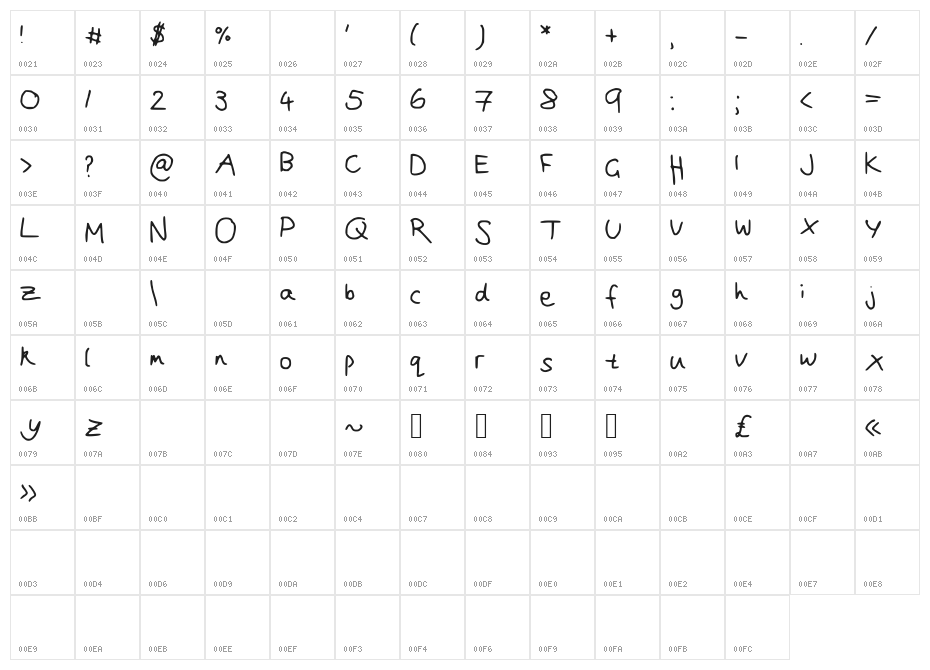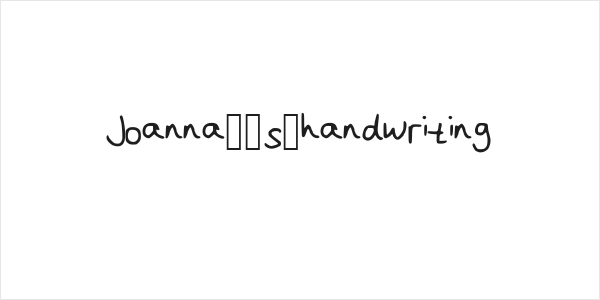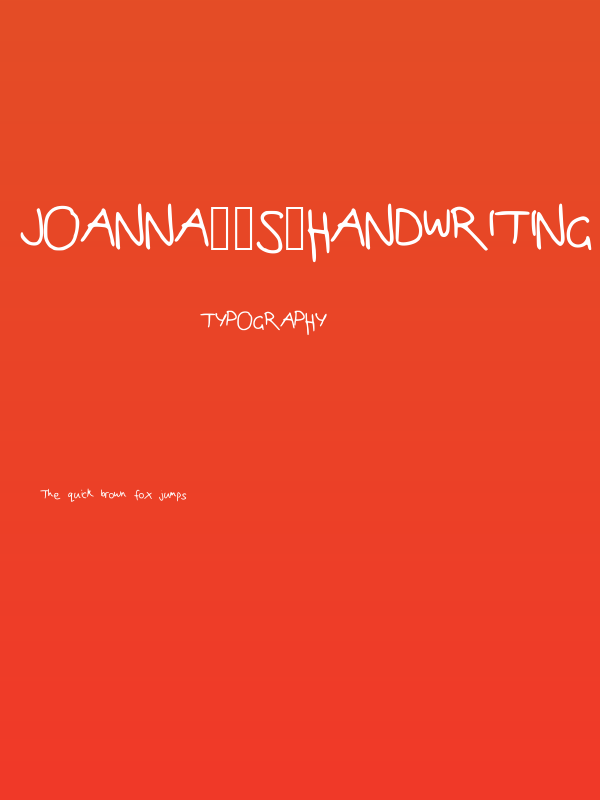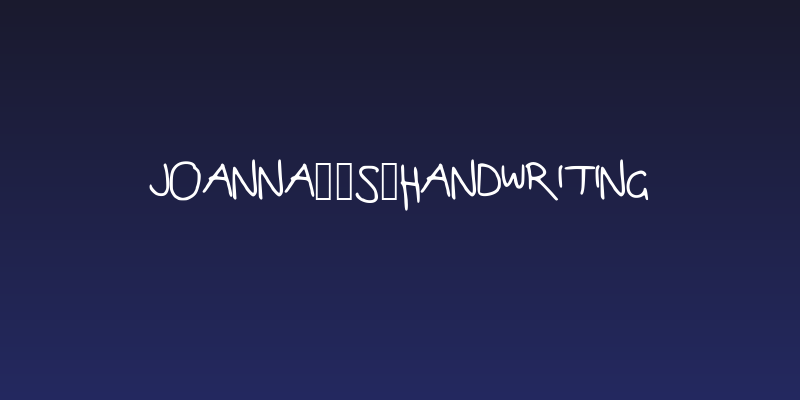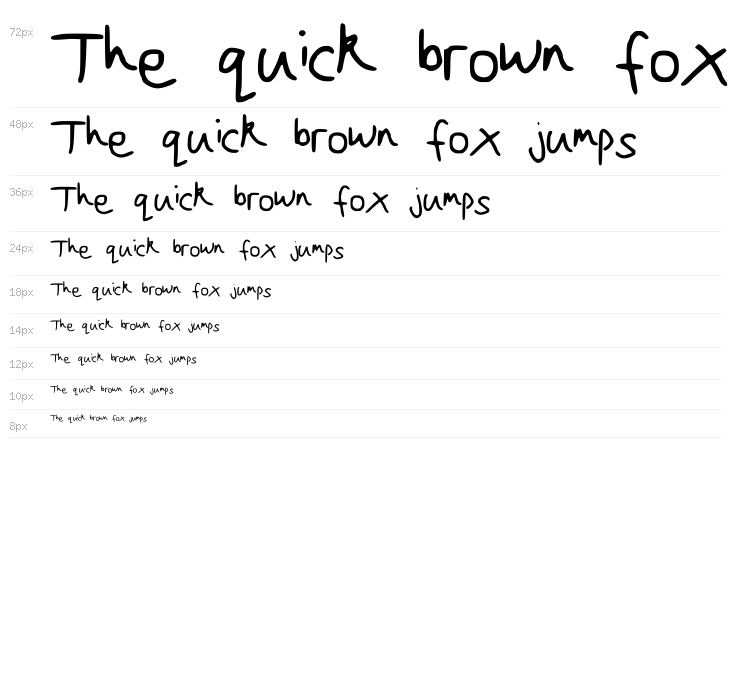
Joanna__s_handwriting Font
Joanna__s_handwriting Description
This font exudes a casual and playful vibe, reminiscent of natural handwriting. The letters are slightly irregular, adding a personal touch that mimics the flow of a pen on paper. The strokes are smooth and rounded, with a consistent thickness that maintains readability while conveying a relaxed aesthetic. The uppercase and lowercase letters are well-proportioned, and the numerals are clear and distinct. Special characters are included, maintaining the same handwritten style, making this font versatile for various informal applications.
| Use Case | Headlines, Informal text, Personal projects |
| Proposed Projects | Ideal for personal notes, invitations, greeting cards, and informal branding projects. |